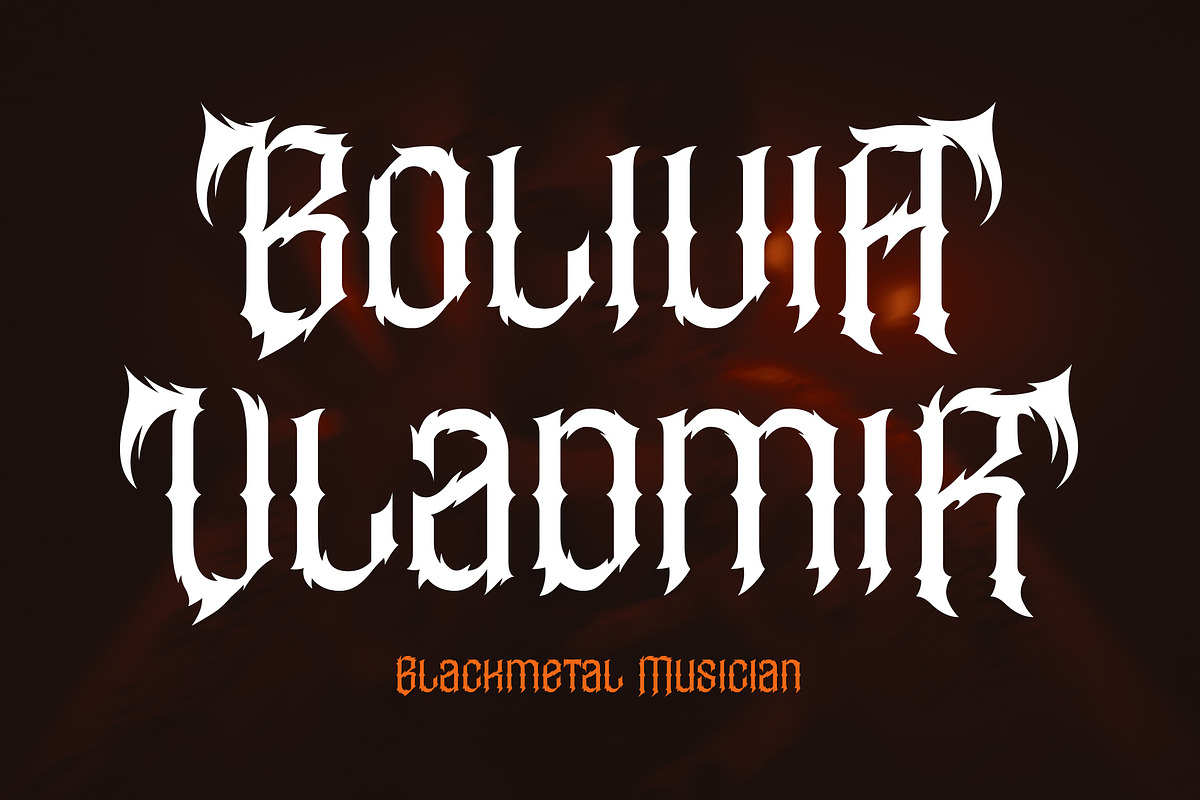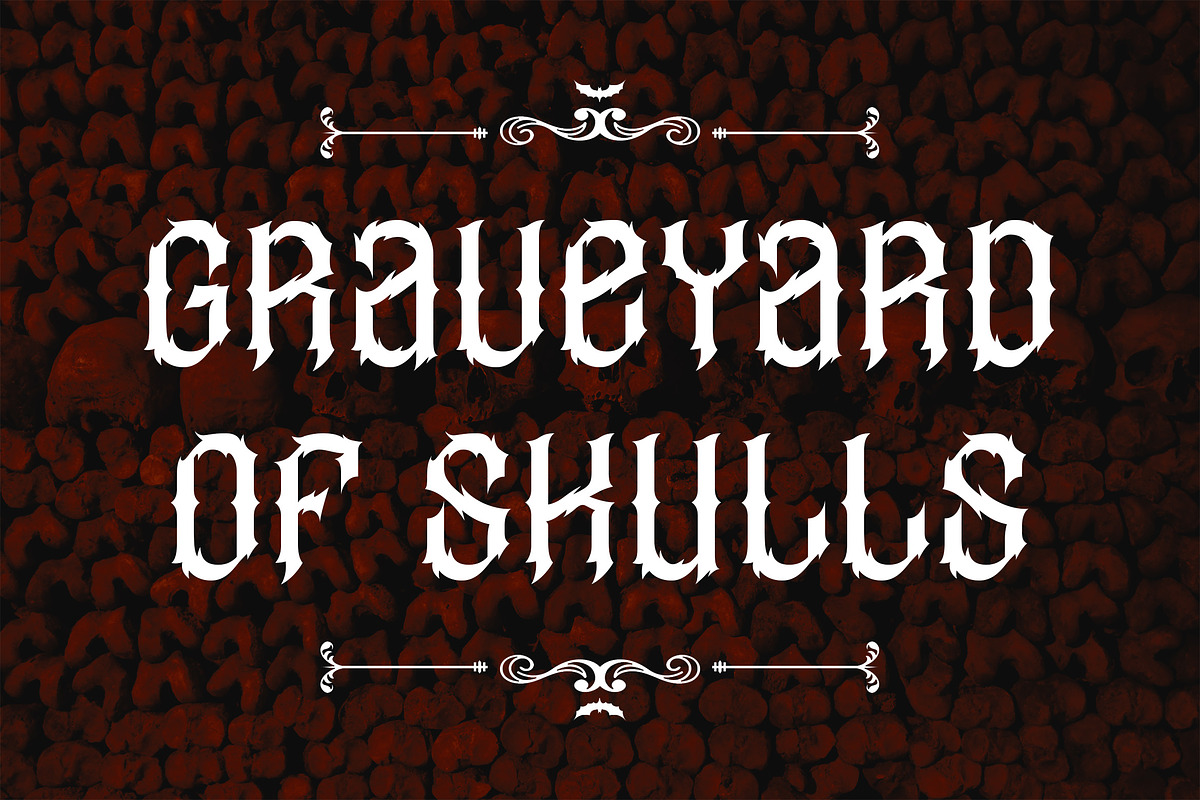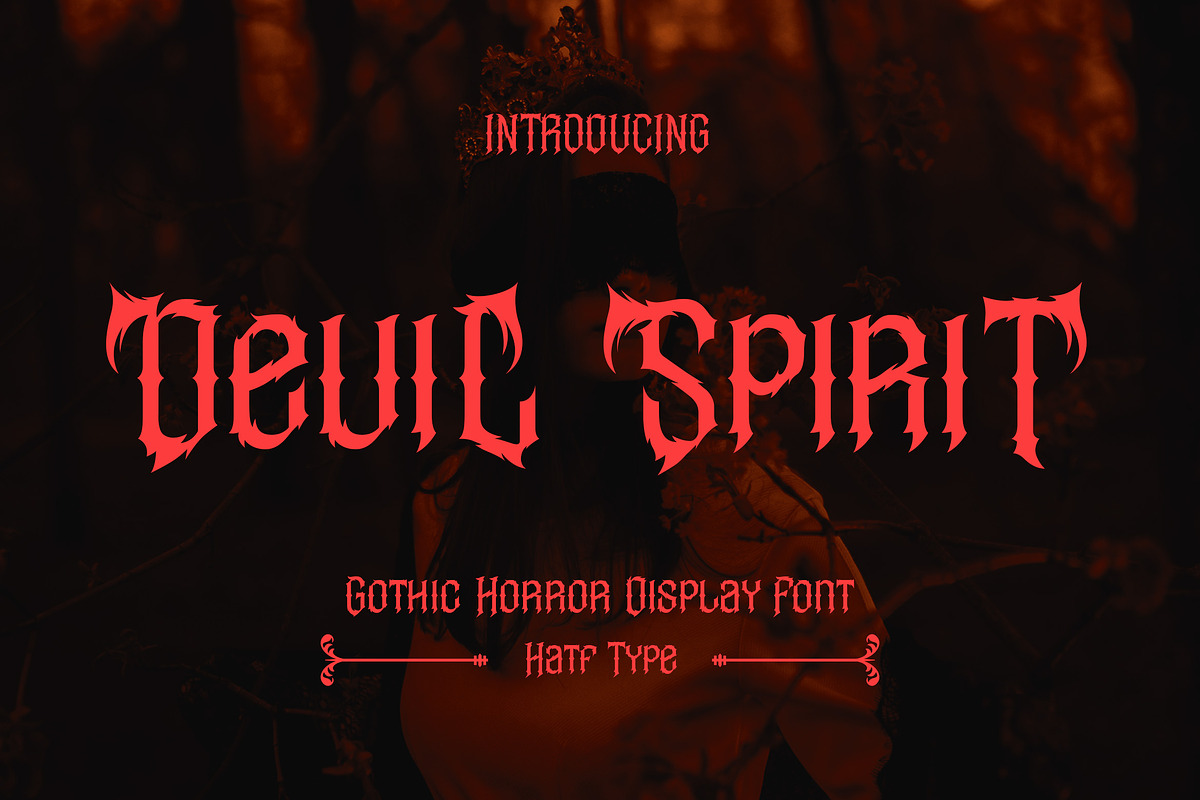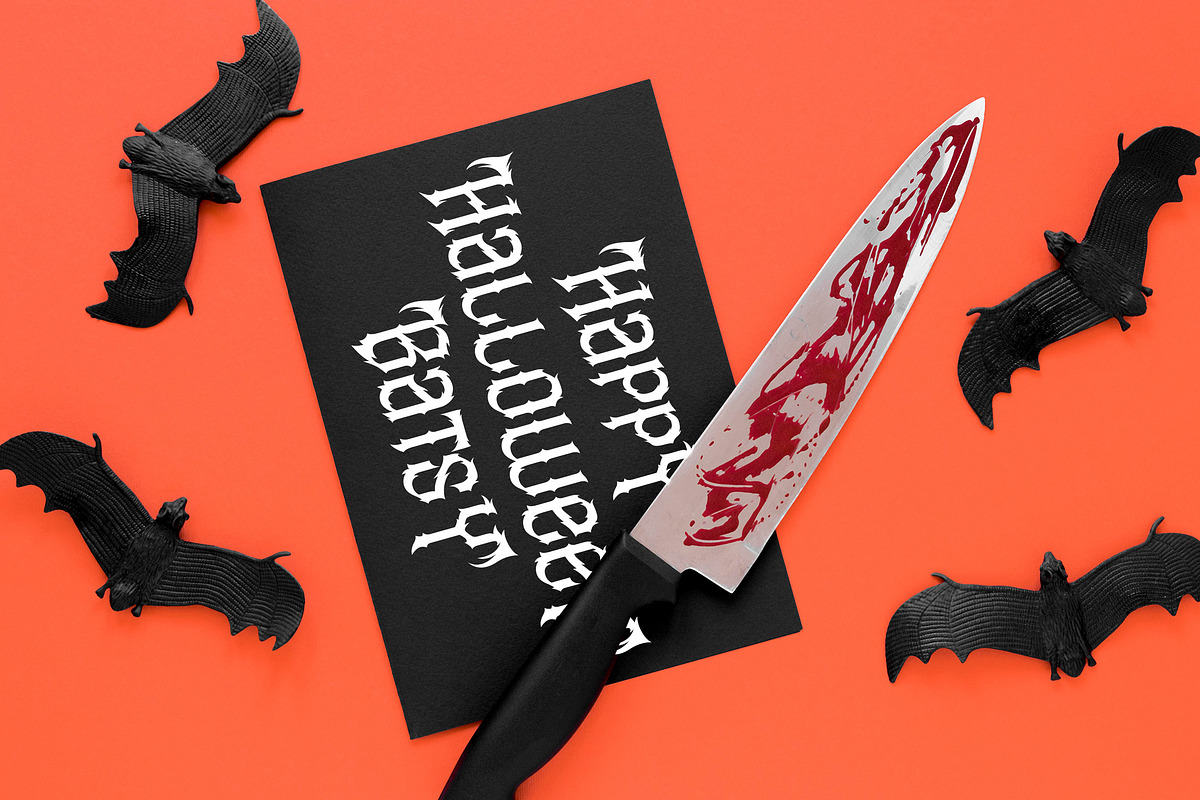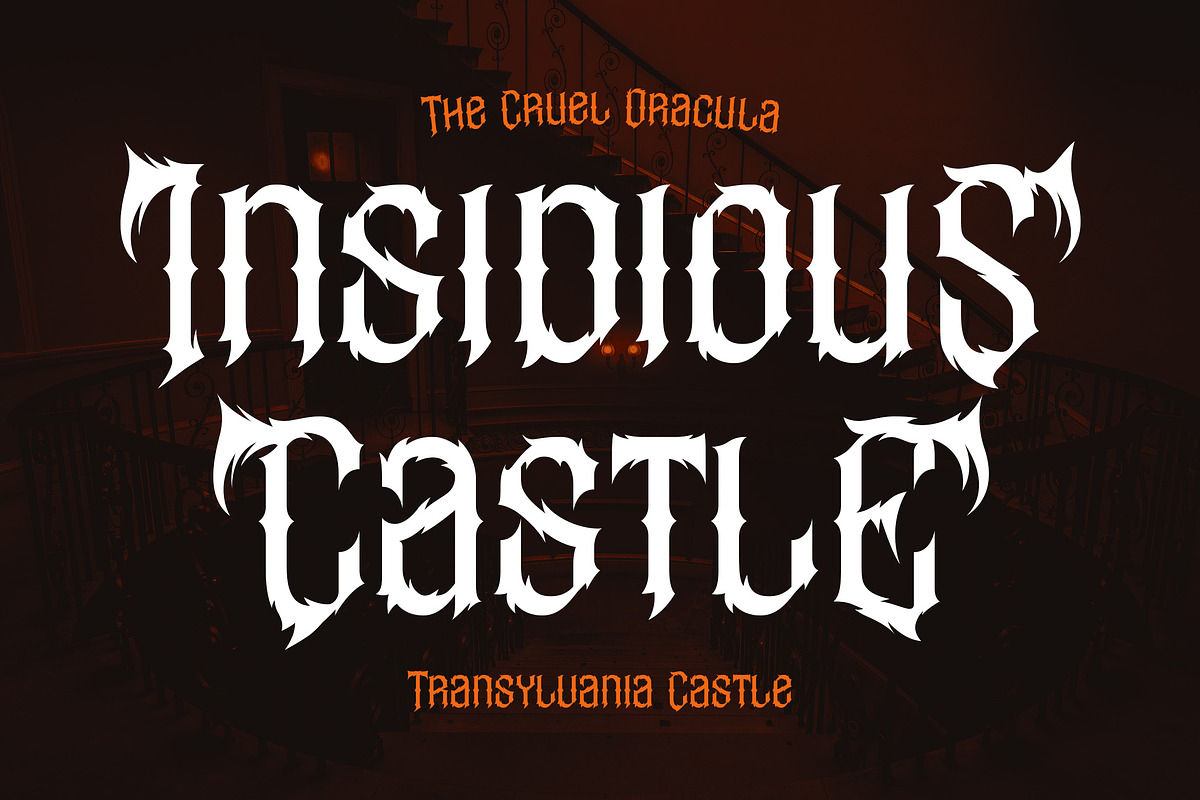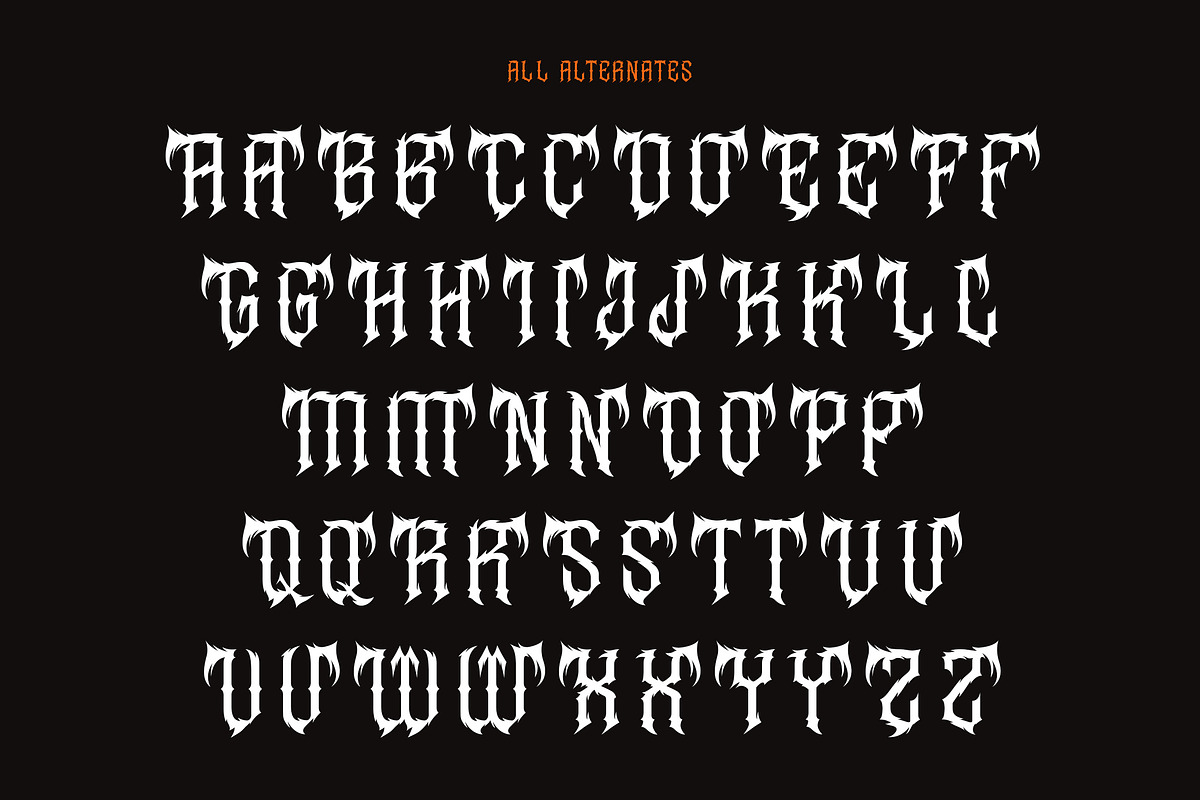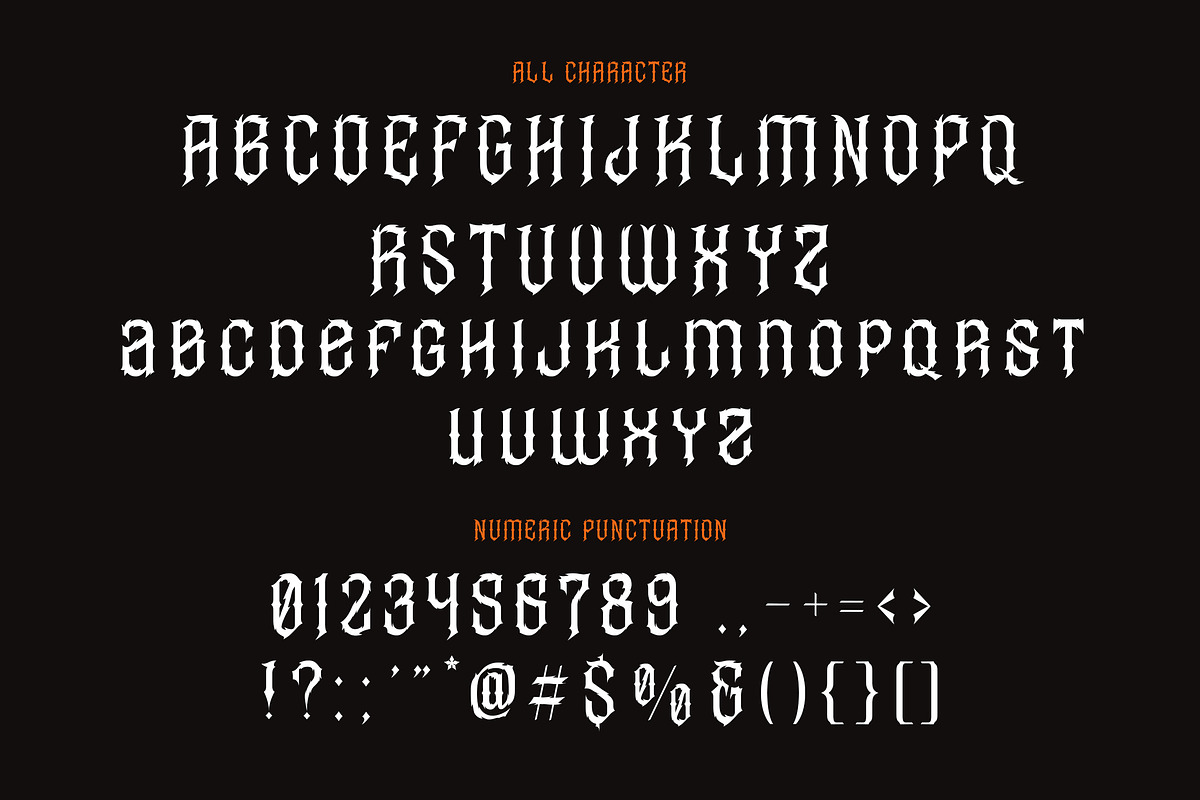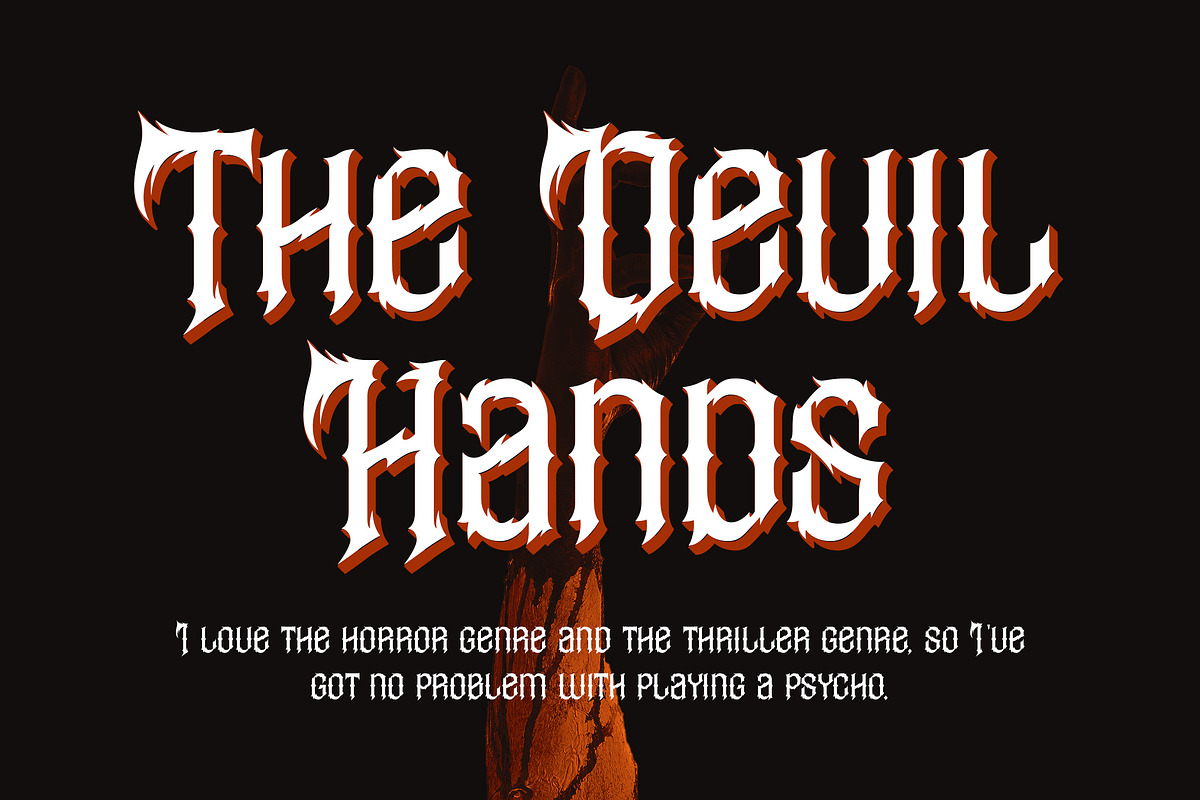
Devil Spirit
Devil Spirit is a gothic horror-themed display font that exudes a dark, mystical feel, and is full of dark energy. With sharp, spiky, and textured letterforms resembling demonic shadows, this font creates a tense yet elegant atmosphere.
Every curve of the letterform is designed to convey a dark aura, making it a perfect choice for horror, gothic, heavy metal, Halloween-themed works, and even posters and covers with a mysterious feel. Devil Spirit is more than just a font; it’s a symbol of power born from the darkest corners of the imagination.
With a strong, challenging, and bold style, Devil Spirit is ready to strengthen your visual identity, making it more striking, distinctive, and unforgettable.